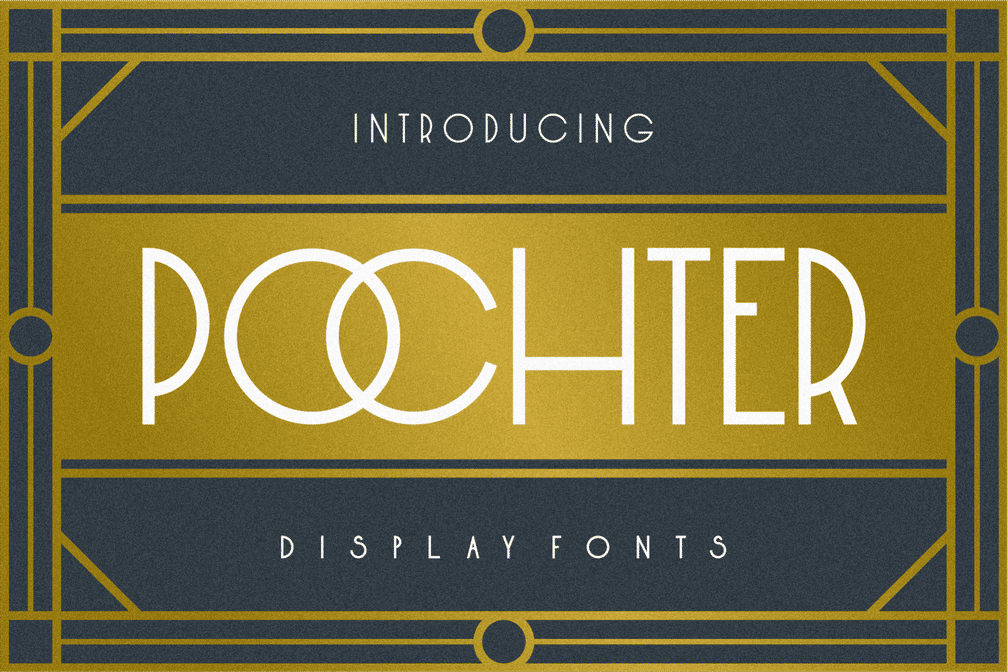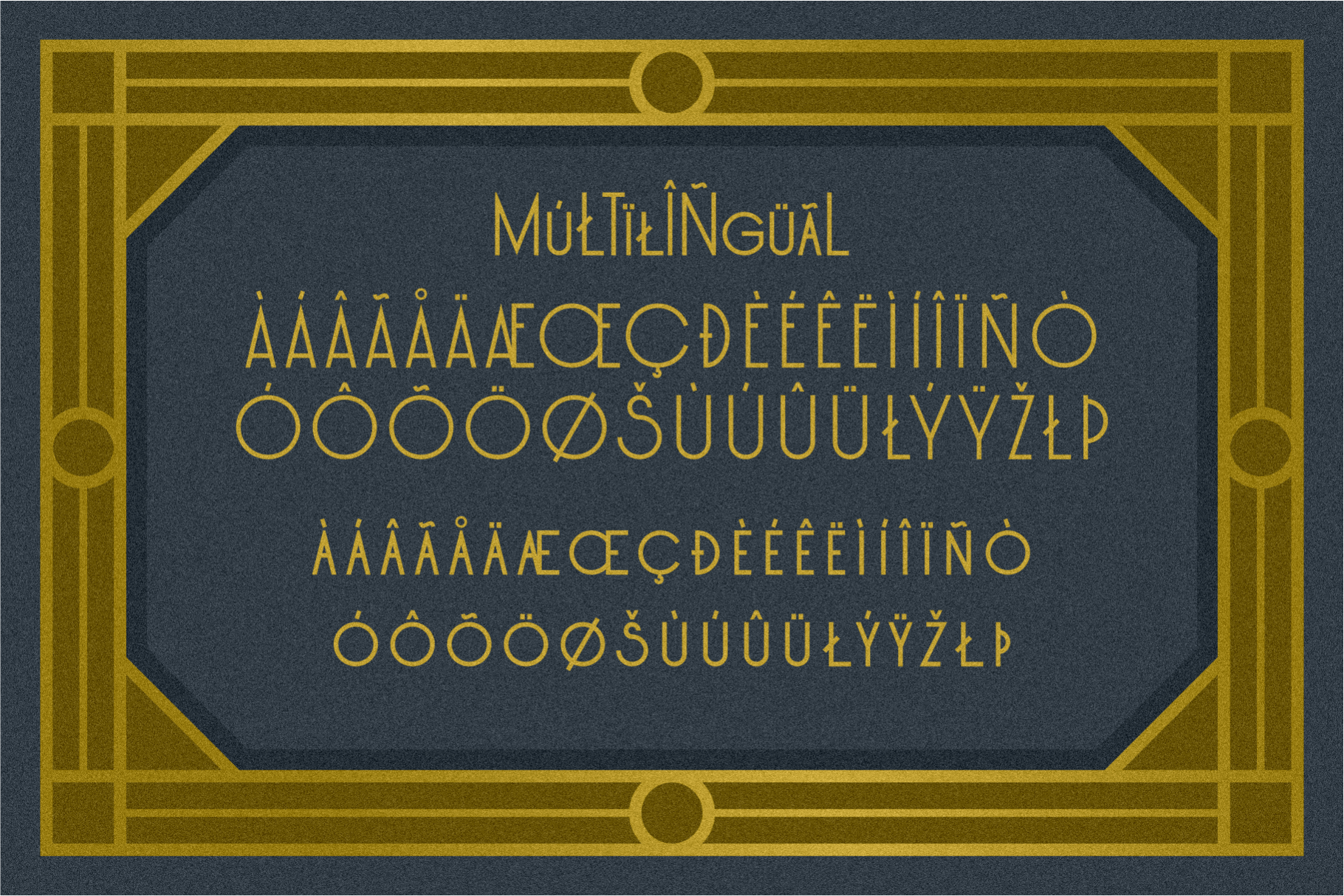
Pochter Art Deco
Inspired by various things about art deco, suitable for designs that need a classic, old, and luxurious feel.
Perfect for headlines, poster designs, logos, etc.
• Uppercase and lowercase
• Ligatures
• Numeral and punctuation
• Multilingual support